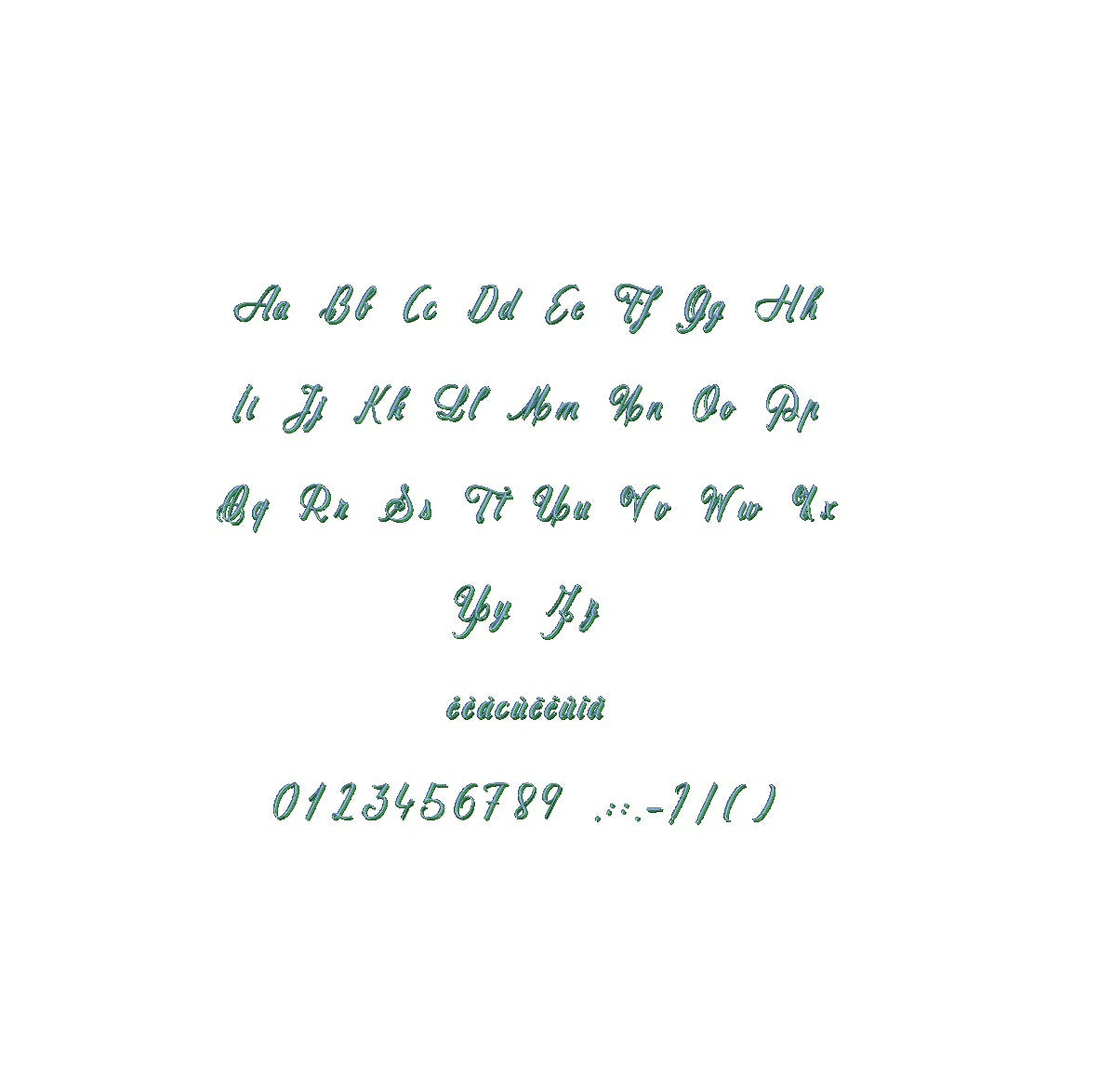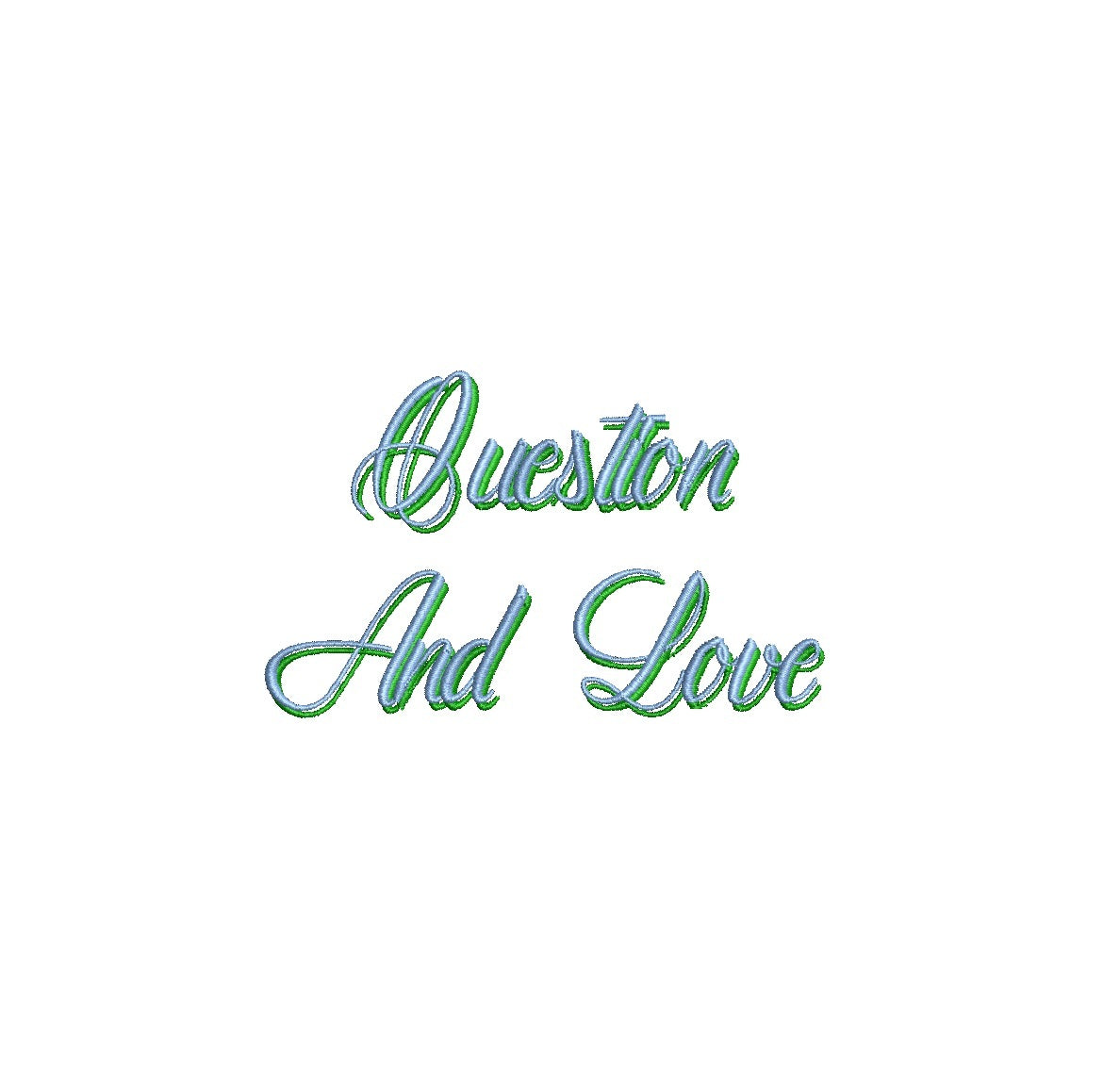
Elevate your embroidery with the captivating Question and Love Shadow ESA font. Designed for Wilcom Studio e4.5.6 and Hatch 3 versions and newer, this font seamlessly combines curiosity and affection. Craft unique designs with its intriguing shadow effect, adding depth and emotion to your lettering. Ideal for diverse applications, from thought-provoking text to heartfelt messages. Effortlessly express yourself as the Question and Love Shadow ESA font adds a touch of sentiment to your embroidery. Elevate your creativity and leave a lasting impact. Choose this font to infuse your designs with curiosity and love, making them truly exceptional.